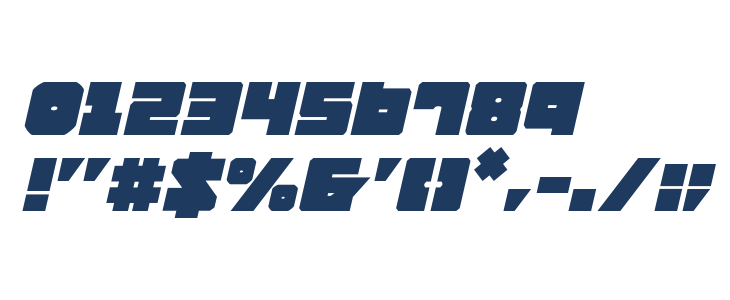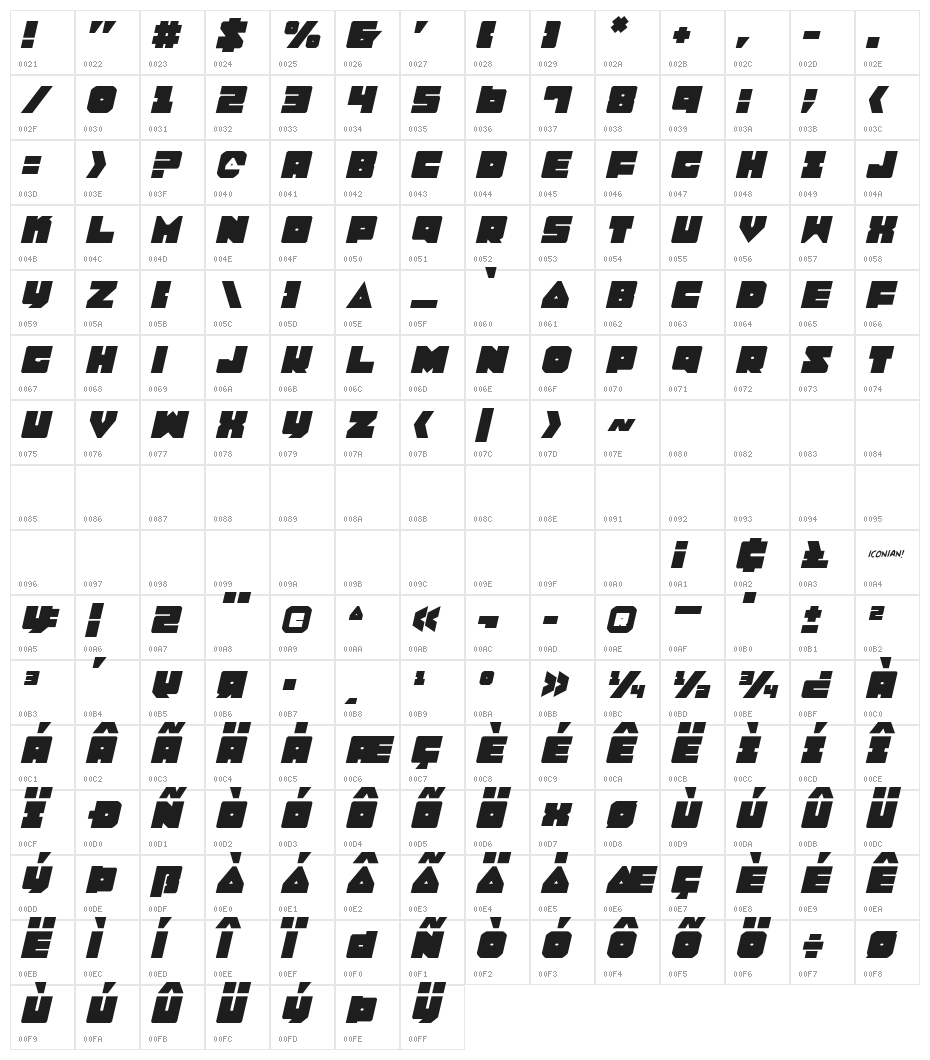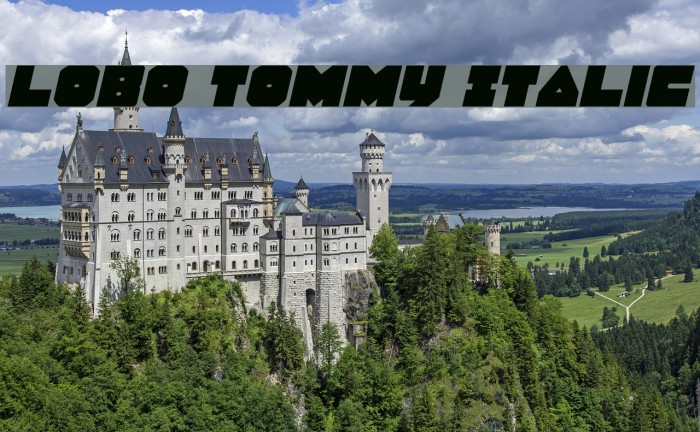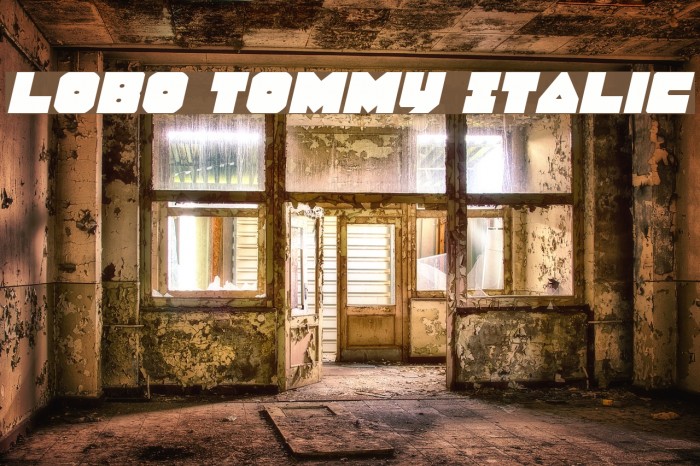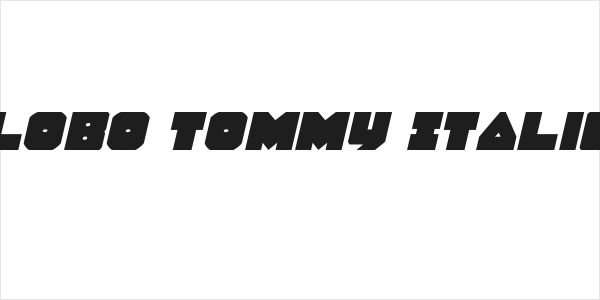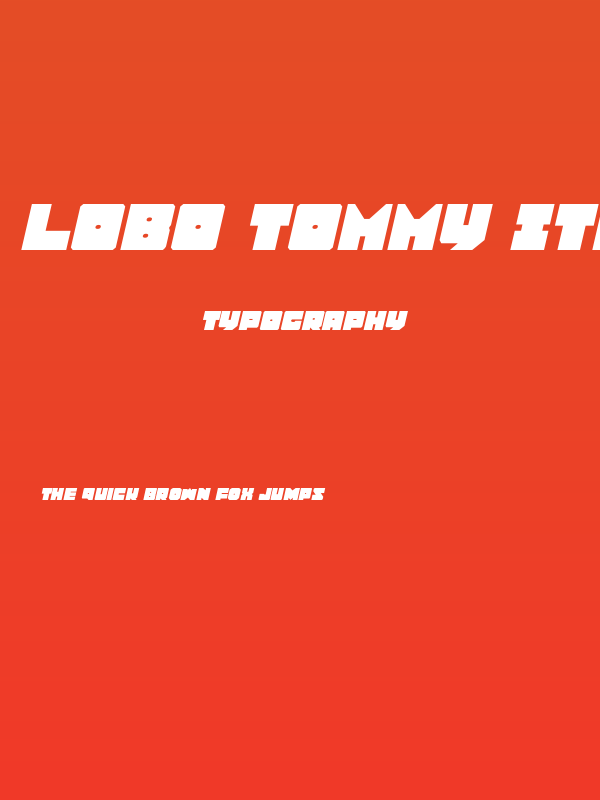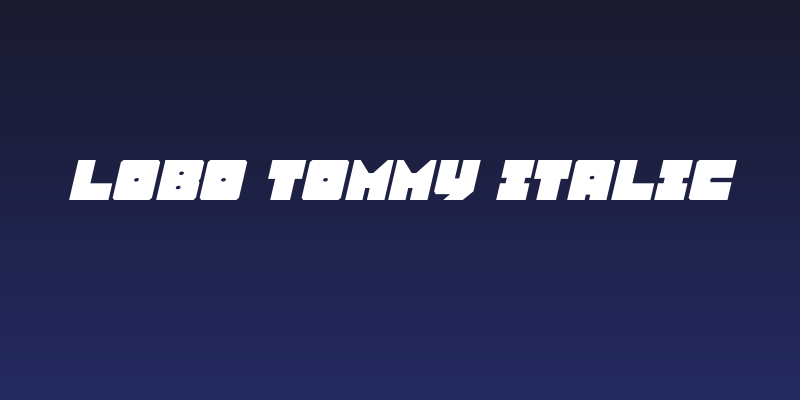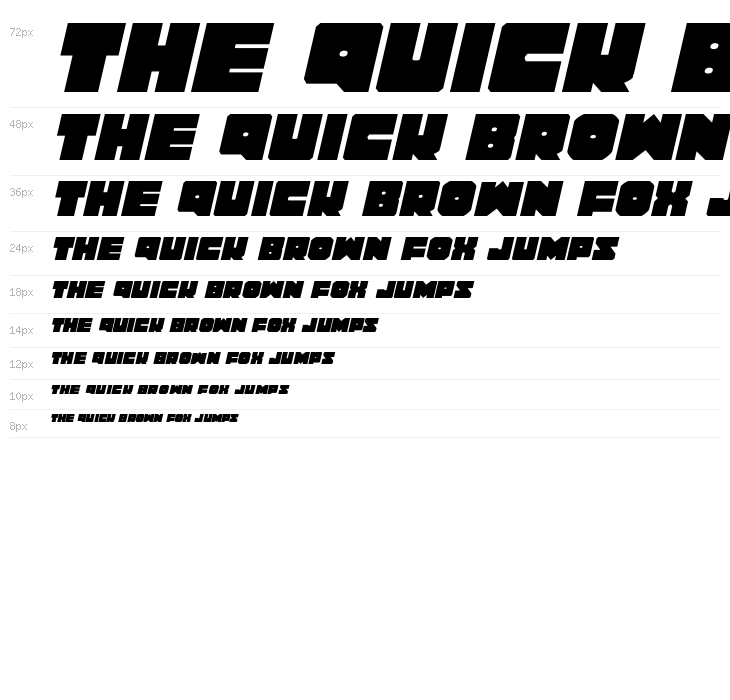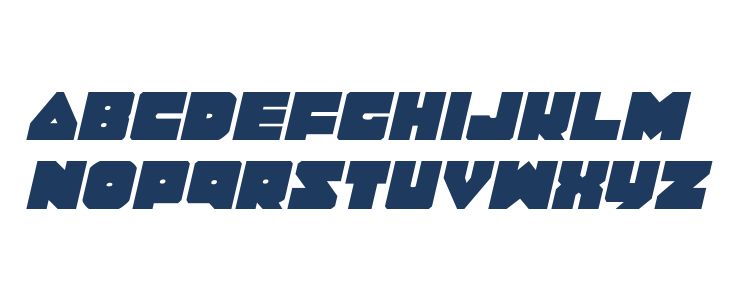
Lobo Tommy Italic Font
Lobo Tommy Italic Description
This font features a bold and dynamic style with a strong geometric influence. The characters are angular and have a futuristic appearance, with sharp edges and a slightly italicized slant that adds a sense of motion. The uppercase and lowercase letters maintain a consistent design, enhancing readability while still providing a unique aesthetic. Numbers and special characters follow the same bold and angular design, making them stand out. This font is ideal for projects that require a modern and impactful look.
| Proposed Projects | Ideal for branding, sports team logos, video game titles, and posters. |